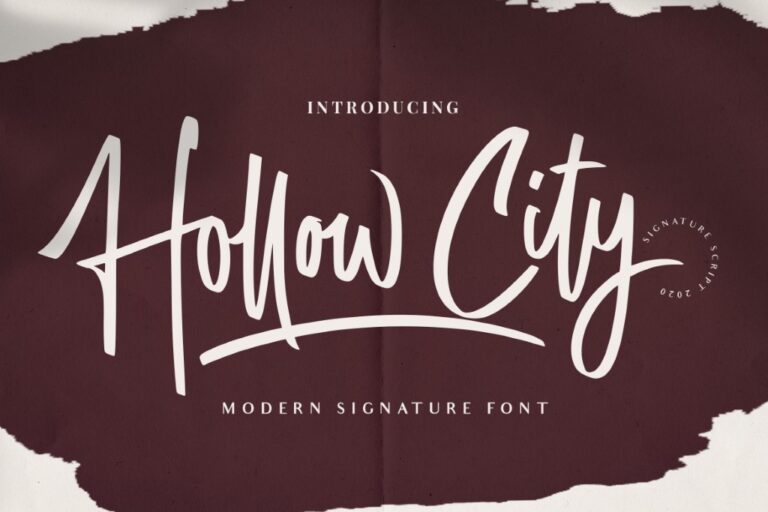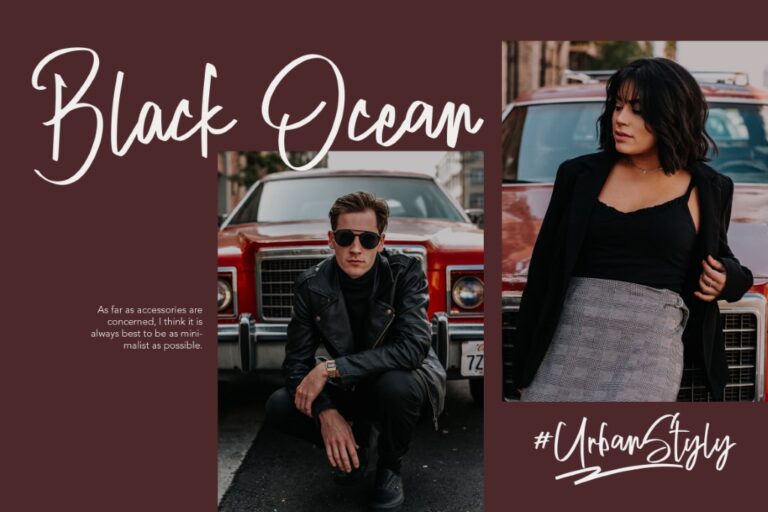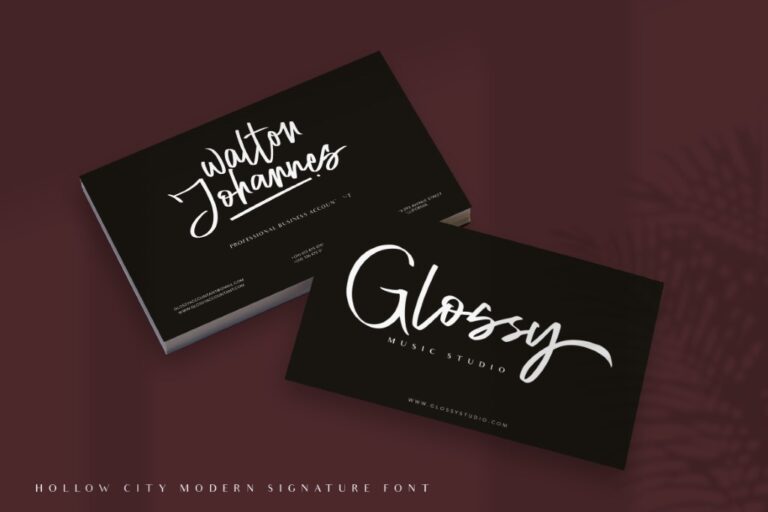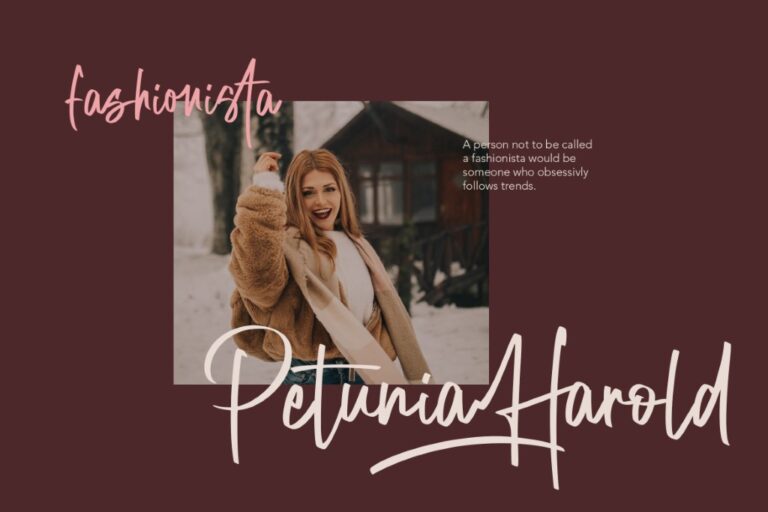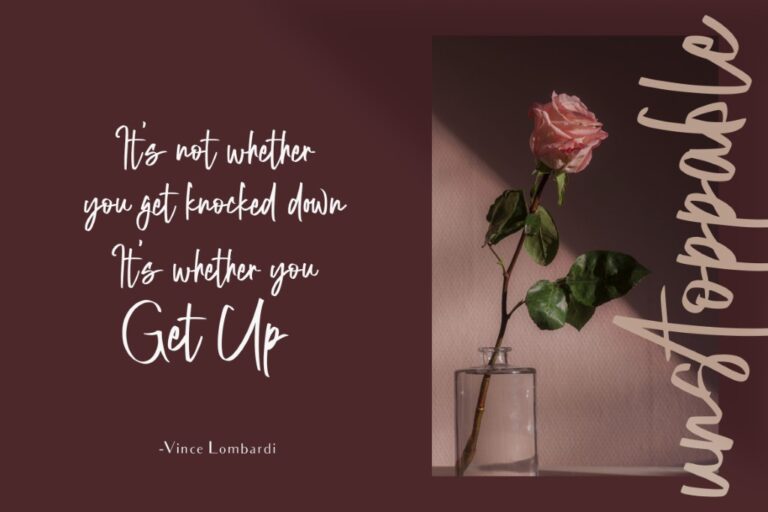
Hollow City
This is elegant script font. It can easily be matched to an incredibly large set of projects, so add it to your creative ideas and notice how it makes them stand out!